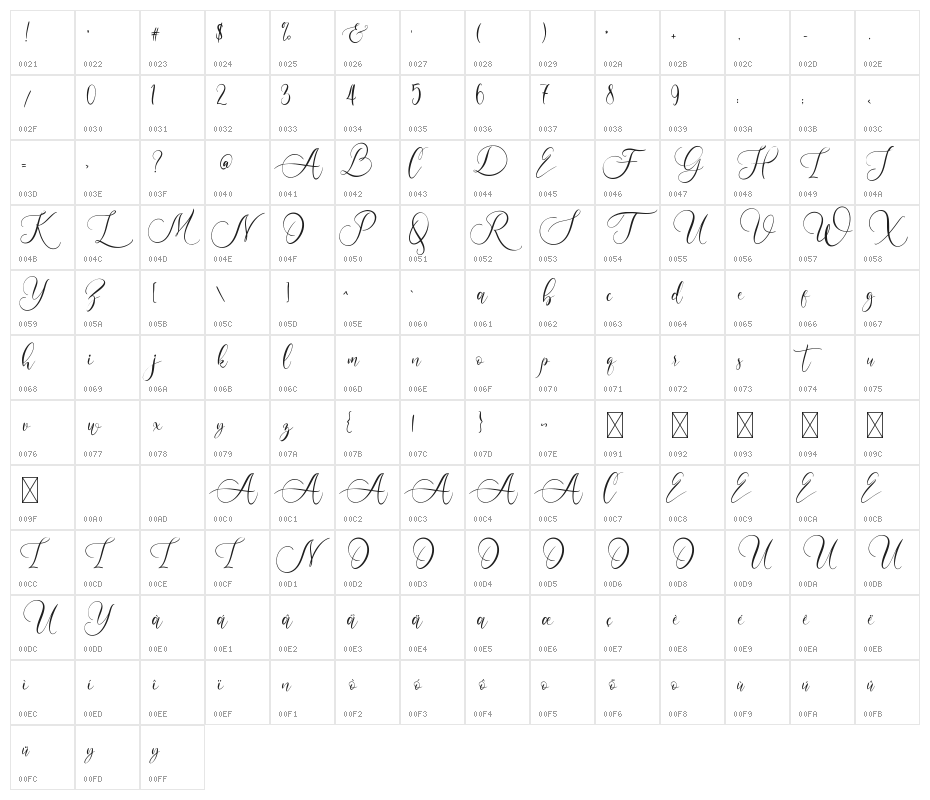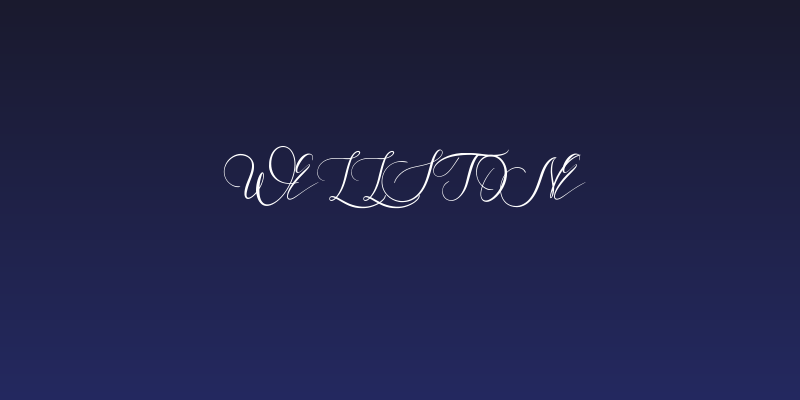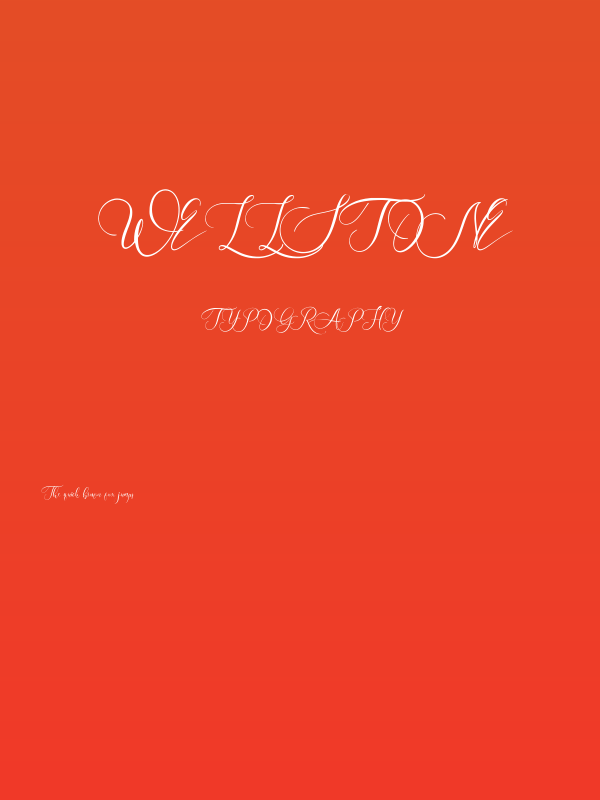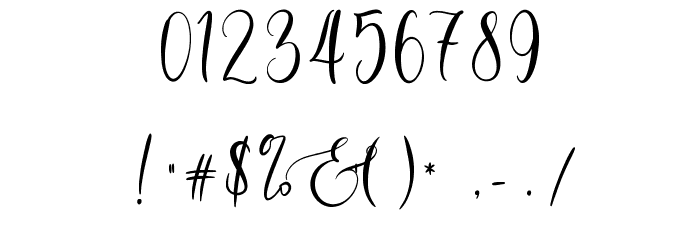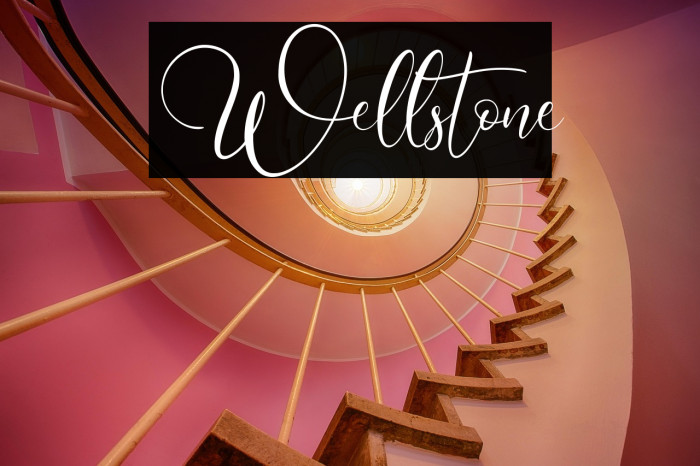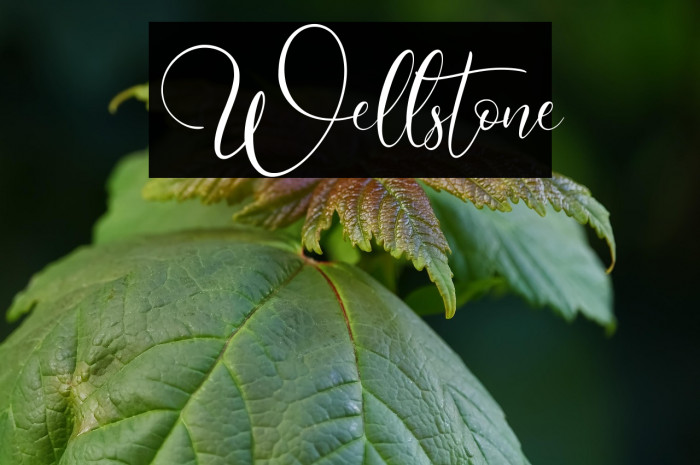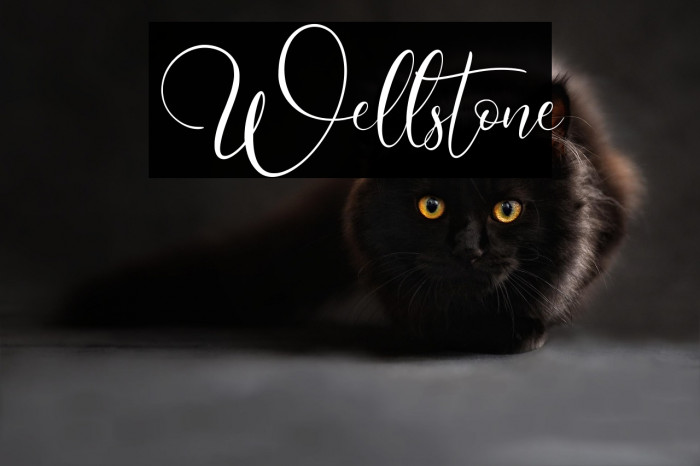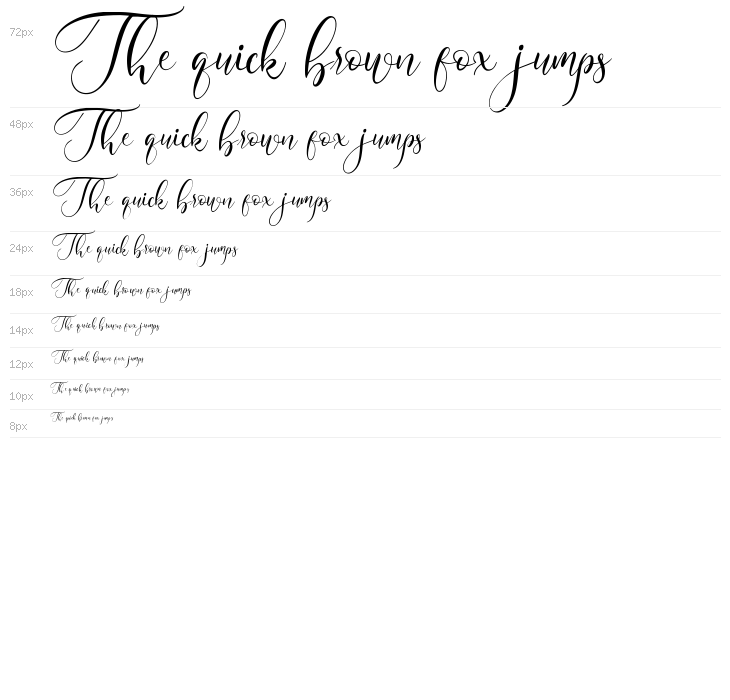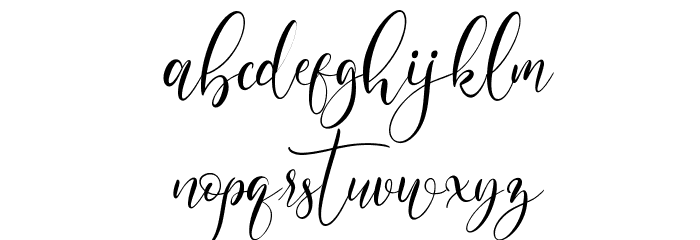
Wellstone Font
Wellstone Description
This elegant script font features flowing, cursive letters with a refined and sophisticated appearance. The uppercase letters are ornate, with sweeping flourishes that add a touch of grandeur. The lowercase letters maintain a consistent style, with smooth curves and delicate loops that enhance readability while preserving the font's decorative nature. Numbers and special characters are designed to match the overall aesthetic, ensuring a cohesive look across all text elements. This font is perfect for projects that require a touch of elegance and sophistication.
| Proposed Projects | Ideal for wedding invitations, elegant branding, greeting cards, and luxury product packaging. |